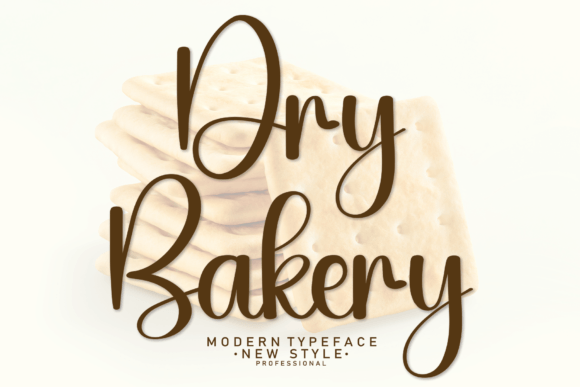
Introducing Dry Bakery Font – A Culinary Masterpiece for Your Creative Palate
Prepare to be captivated by Dry Bakery Font, a delectable script typeface that will add a touch of sugary sweetness to your designs. With its characters dancing rhythmically along the baseline, this font is a true testament to the art of calligraphy. Treat yourself to an unforgettable sensory experience as you craft enchanting designs that radiate an aura of romance and elegance.
Unlock the Endless Possibilities of Dry Bakery Font
The enchanting Dry Bakery Font opens up a world of creative opportunities, inviting you to explore your imagination and bring your design visions to life. Whether you're a seasoned designer or just starting out, this font has something special to offer. Its meticulously crafted curves and flowing lines will elevate your designs to new heights.
Indulge in the Sweetness of Dry Bakery Font's Charm
Let Dry Bakery Font cast its enchanting spell on your creations, transforming them into masterpieces of elegance. Its delicate and graceful strokes will captivate your audience, leaving them mesmerized by the sheer beauty of your designs. With this font, you'll effortlessly create personalized invitations, heartfelt greeting cards, captivating social media posts, and eye-catching logos that will leave a lasting impression.
Step into a World of Creative Freedom with Dry Bakery Font
With Dry Bakery Font as your creative companion, you'll embark on a journey of limitless expression. This font liberates your imagination, allowing you to explore new design territories and push the boundaries of your creativity. Its versatility lends itself effortlessly to a symphony of projects, seamlessly blending into wedding invitations, branding materials, product packaging, and website designs.
Savor the Exquisite Taste of Dry Bakery Font
Indulge in the delectable flavors of Dry Bakery Font, where each character is a carefully crafted morsel of typographic delight. Its intricate details and playful flourishes will satisfy even the most discerning design palate. Allow Dry Bakery Font to tantalize your senses as you immerse yourself in a world of visual artistry.
Embark on a Culinary Adventure with Dry Bakery Font
Dry Bakery Font is an invitation to embark on a culinary adventure, where each design project becomes a feast for the eyes. Its enchanting script will transport you to a realm of delectable delights, where creativity and beauty harmonize perfectly. As you explore the endless possibilities of Dry Bakery Font, you'll discover a newfound passion for design, fueled by the boundless inspiration it provides.